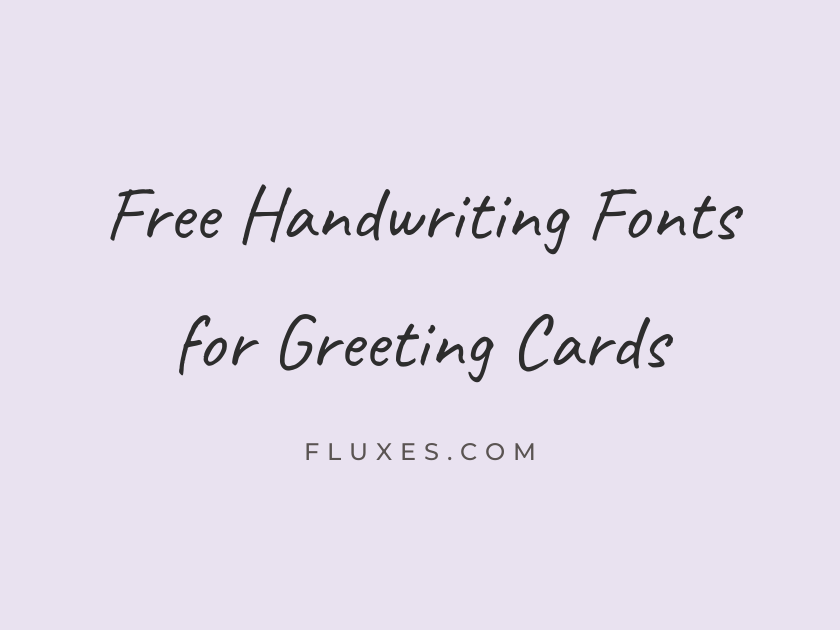
69 Best Free Handwriting Fonts for Greeting Cards
Handwritten lettering is what turns a printed card into something that feels personal, as if a friend actually picked up a pen. For anyone designing invitations, birthday cards, holiday mailers, or digital greeting templates, free handwriting fonts from Google Fonts offer an enormous and often underused resource: casual scrawls for playful notes, elegant scripts for weddings and anniversaries, and bold marker styles for bright, festive messages. The trick is matching the tone of the handwriting to the occasion, and knowing which of these fonts hold up at small sizes versus which ones need room to breathe.
Below is a wide-ranging survey of the best free script and handwriting fonts for greeting card design, covering everything from bubbly everyday cursive to formal calligraphy worthy of a wedding suite.
Caveat has become the default casual handwriting font for good reason: it looks like a genuinely nice penmanship day, loose but legible, with enough variation in the letterforms that repeated words never look robotic. It scales beautifully from tiny card captions to oversized envelope lettering, which makes it one of the safest picks on this list for a first-time design.
Bouncy, rounded, and instantly cheerful, Dancing Script has that unmistakable wedding-invitation quality without tipping into stuffiness. Pair it with a clean sans serif for the body copy and it carries an entire card on its own.
A slender, old-fashioned script with delicate connecting strokes, Sacramento reads like a monogram more than a note. Keep it for short phrases and titles; at paragraph length the thin strokes start to lose their charm.
Great Vibes is pure calligraphy flourish, the kind of script you would find engraved on a formal invitation. It works best in a large size as a headline treatment, since the swashes need generous spacing to stay legible.
This one has real brush-pen texture, with tapered strokes that thicken and thin the way an actual calligraphy brush would. It suits romantic and celebratory cards, especially anniversaries and engagements, where a touch of drama feels earned.
Allura leans more upright and formal than most scripts on this list, which makes it a good fit for save-the-dates and christening cards. Its narrow proportions let it fit into tight card layouts without crowding.
Rounded, romantic, and just a little retro, Parisienne feels like something lifted from a vintage French postcard. It pairs naturally with soft pastel palettes and floral illustration styles.
Satisfy sits in a sweet spot between casual and refined: it has a confident, marker-like flow but stays tidy enough for formal messages. Because the letters are fairly compact, it holds up surprisingly well in smaller card text.
Kalam has an honest, unpolished warmth that suits sympathy and encouragement cards especially well. Originally designed with Devanagari support in mind, its Latin set carries the same humane, slightly imperfect rhythm.
Light, quick, and a little playful, this font looks like a note dashed off between errands rather than something labored over. It is a favorite for casual birthday cards and sticky-note style digital greetings.
Rounded and bubbly, Indie Flower reads as youthful and unpretentious, ideal for kids’ birthday cards or anything aimed at a lighthearted, informal audience. It loses some clarity in long paragraphs, so it is best reserved for short greetings.
Bold and blunt, Permanent Marker looks exactly like its name suggests, thick felt-tip lettering with no fuss. It is a strong choice for kids’ cards, party invitations, or any greeting that wants to shout with enthusiasm rather than whisper.
This one mimics a slow, deliberate ballpoint scrawl, the kind of handwriting you’d find in a handmade card tucked into a gift. It is dense and a bit heavy at small sizes, so give it room on the page.
Reenie Beanie
Reenie Beanie has a quick, slanted, almost hurried feel, like a note scribbled on the back of an envelope. It works well for informal thank-you cards and casual messages that want to feel spontaneous.
Nanum Pen Script
Originally developed for Korean handwriting, Nanum Pen Script’s Latin characters carry a soft, rounded pen quality that feels friendly rather than fussy. It reads cleanly at moderate sizes and pairs nicely with minimal, modern card layouts.
When in doubt, download a few candidates and test them at the actual size your card will print or display. What looks graceful in a large mockup can behave very differently once it is shrunk down to fit a real greeting card layout.
With this many free, genuinely well-crafted handwriting fonts available on Google Fonts, there is rarely a reason to reach for a paid script when designing a greeting card. The right choice usually comes down to matching the occasion’s tone, whether that calls for a scrawled note between friends or a formal, calligraphic flourish.